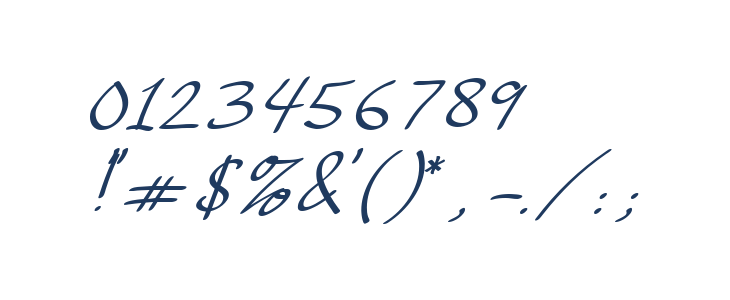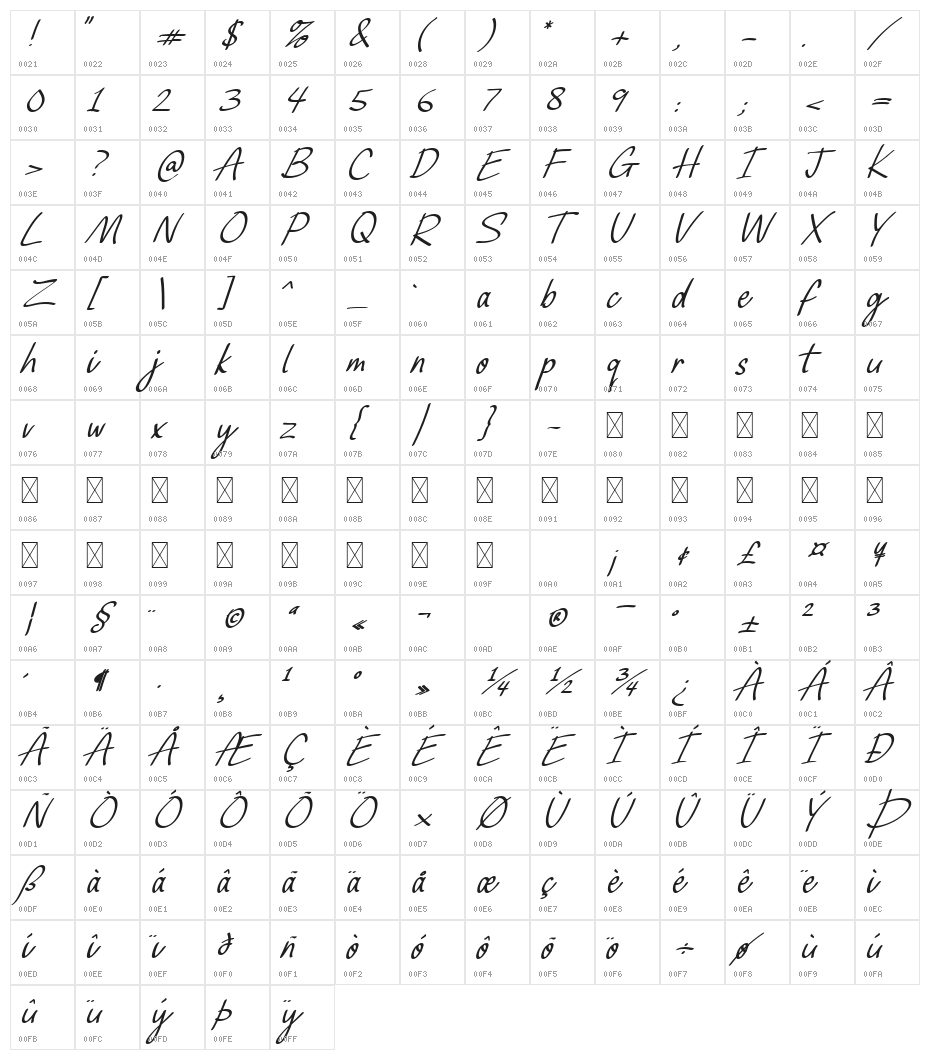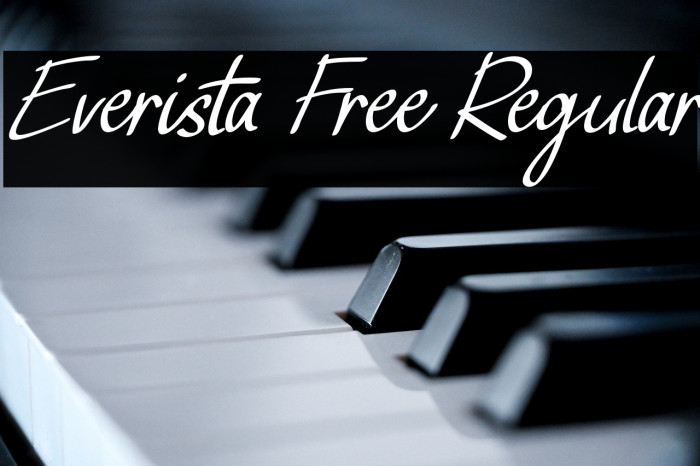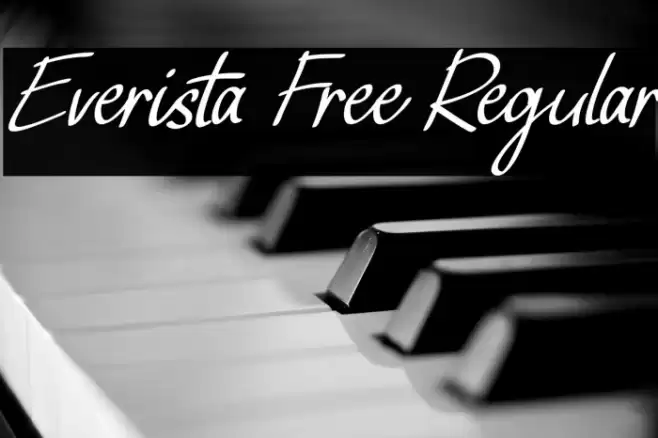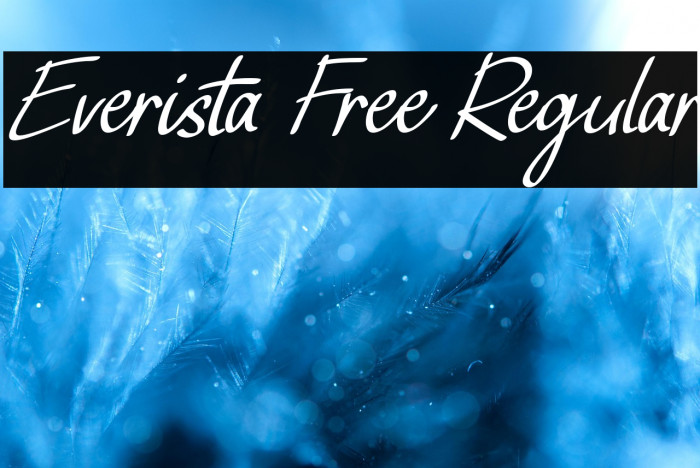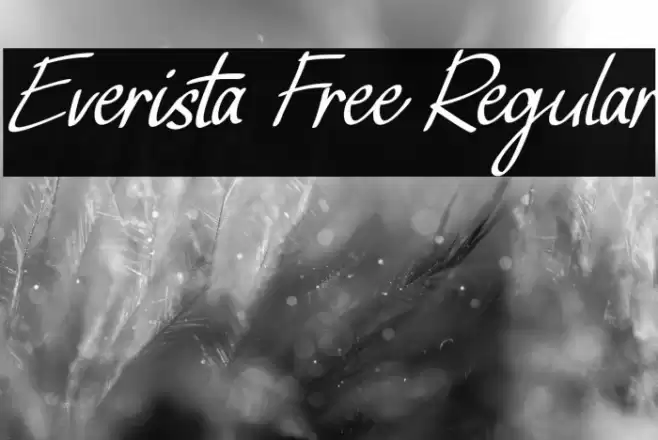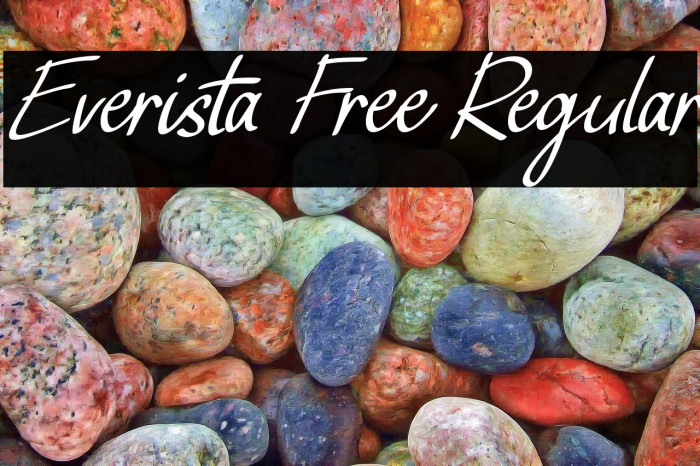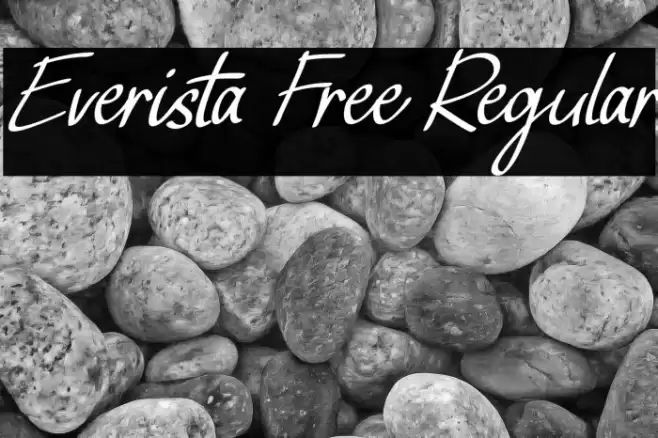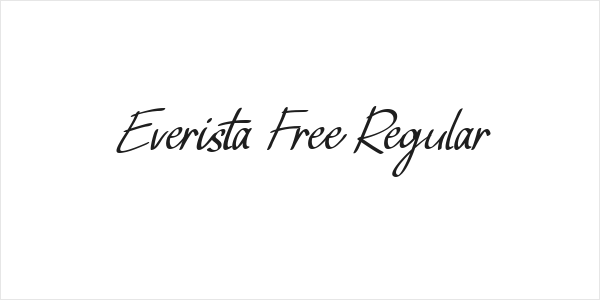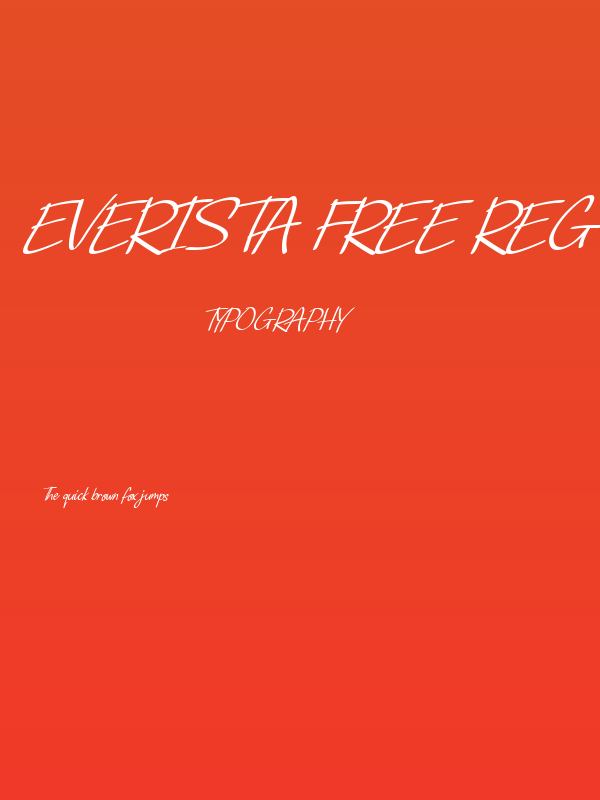
Everista Free Regular Font
Everista Free Regular Description
This font features a clean and modern design with a balanced structure, making it versatile for various applications. The characters are well-proportioned, with a consistent stroke width that provides a harmonious appearance. The uppercase letters are bold and assertive, while the lowercase letters maintain a friendly and approachable feel. The numerals are clear and easy to read, and the special characters are distinct, adding to the font's utility. Overall, this font is designed to be both functional and aesthetically pleasing, suitable for a wide range of design projects.